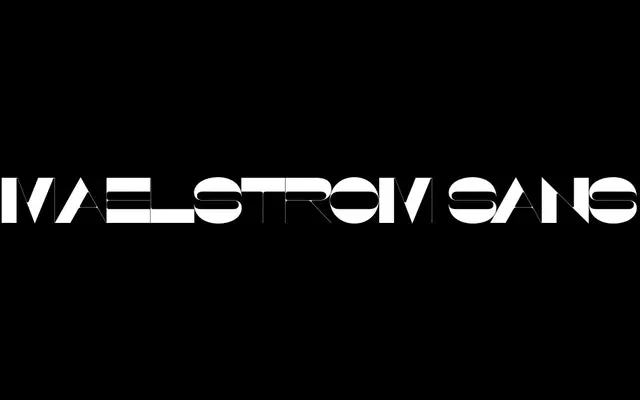
Maelstrom Sans
Klim Type Foundry · Kris Sowersby · 2019
A single-weight reversed-stress display sans of heavy horizontals and spindly diagonals, made for posters and identity rather than text.
A reversed-stress display sans by Kris Sowersby that flips weight onto the horizontals and starves the diagonals, giving it a fragile, almost splintering quality. Released as a single Bold cut, no italic, no other widths. Sits in the Maelstrom collection alongside the slab-serif Maelstrom and belongs to the genre Klim describe as a perpetual typographic outsider, never fashionable yet never abandoned.
Klim classifies it as a Reversed-Stress Sans Serif; an uneasy mix of heavy horizontals and spindly diagonals that feels fragile, like it could splinter at any moment. Sits in the Maelstrom collection alongside the slab-serif Maelstrom.